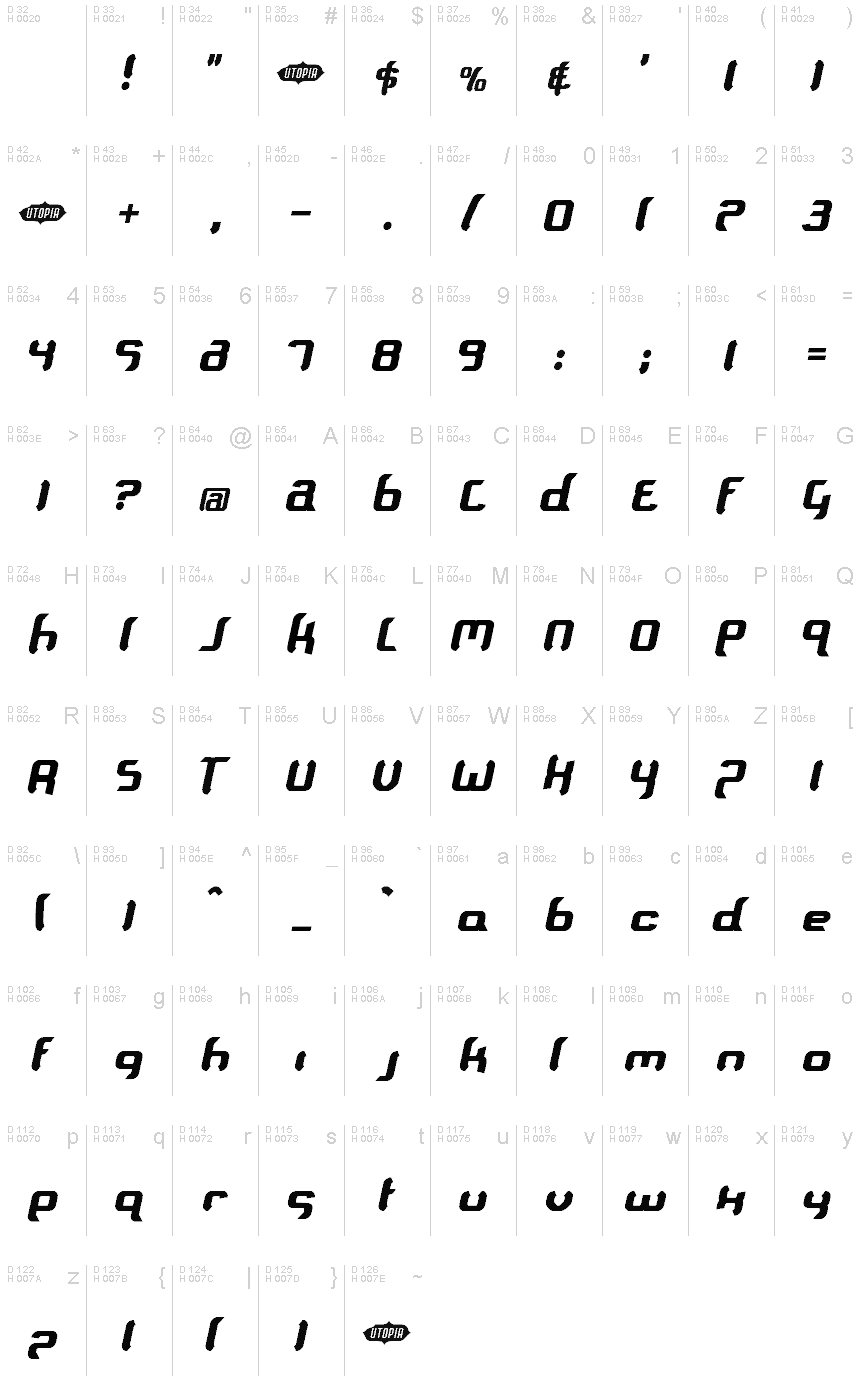
Supersoulfighter
Supersoulfighter emerges as a striking display font crafted by the collaborative genius of Utopiafonts and Channel 42. It boasts a semi-bold weight that stands out with confidence, coupled with an expanded width that commands attention. The futuristic style encapsulates a forward-thinking aesthetic, perfect for innovative branding, eye-catching headlines, and dynamic advertising campaigns. Its clean lines and sleek curves invoke a sense of modernity and progressiveness, making it an ideal choice for creative projects that aim to push boundaries and captivate audiences.
Supersoulfighter is not just a font; it's a visual statement that speaks volumes in the realm of contemporary design.